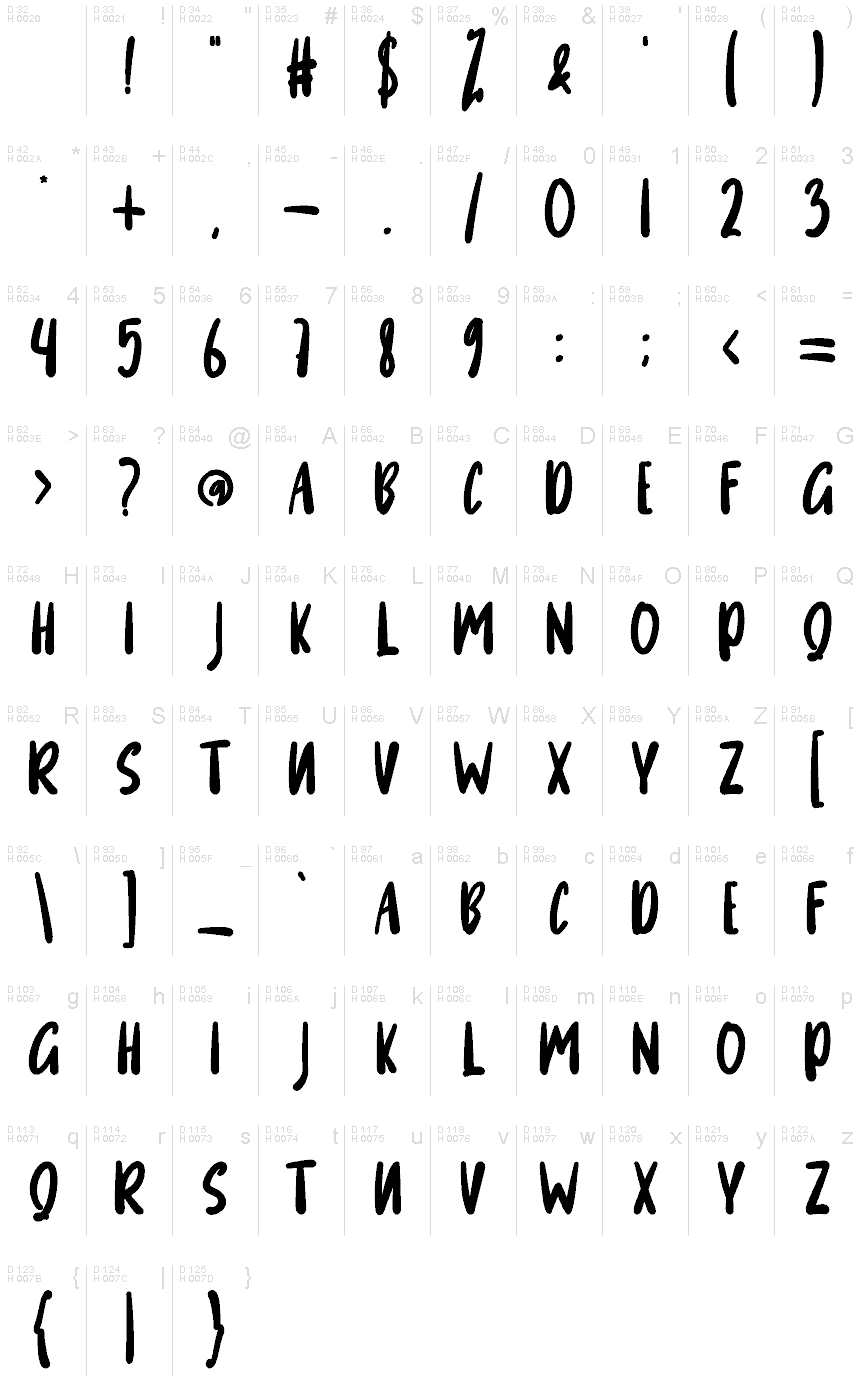
Toydres
Toydres font designed by Skiiller Studio is a condensed brush font with casual and expressive strokes. A free handwritten font to implement an evident youth modern appeal that gives off relaxing vibes in every setting. Toydres is friendly and it instantly connects readers to the texts written with its letters.
With its laid-back aesthetic, this script typeface can be used in numerous display and branding projects related to advertising, children’s books, comics, online games, art event posters, music album covers/titles, stickers design, hobbies magazines front pages or blog headers.